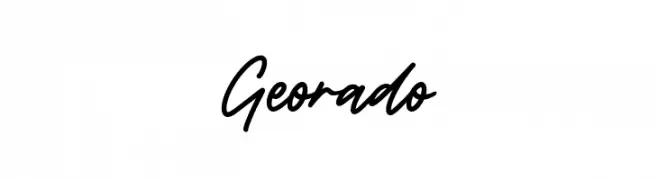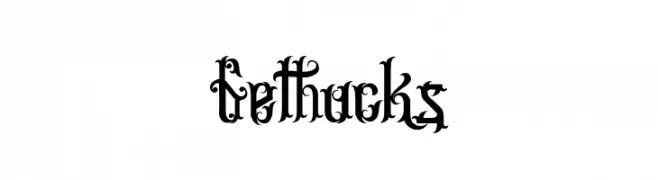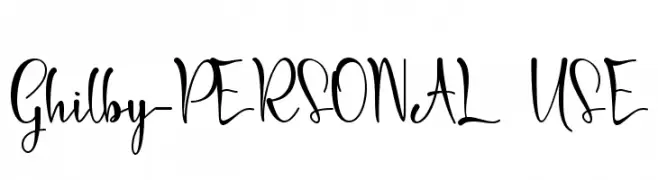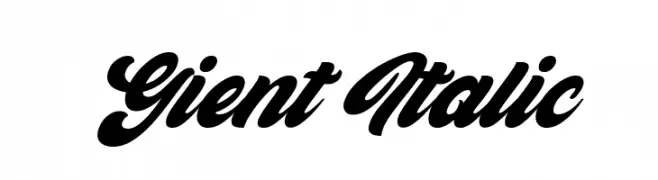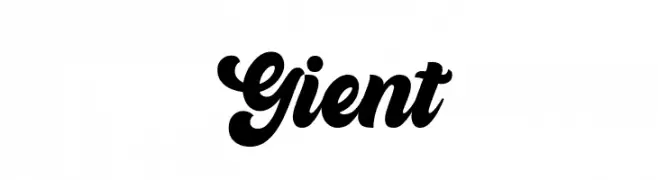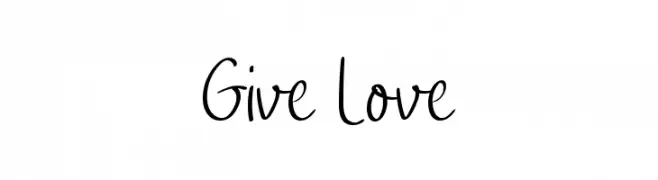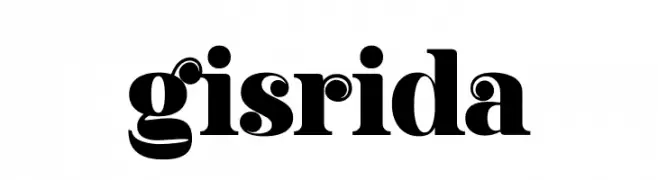
• Geometrico
• Georado
A fluid, handwritten script font with elegant, connected letters.
• Gethucks
An ornate and gothic blackletter-style font with intricate flourishes.
• Ghilby-PERSONAL USE
Playful decorative script font.
• Ghost Army Stencil
A bold, distressed stencil font with a rugged, military-inspired look.
• Gient
A bold, cursive font with smooth, flowing lines and interconnected characters.
• Gient Italic
A bold, italic script font with a modern, handwritten style.
• Gient Swash
Decorative font with exaggerated swashes.
• gisrida
A bold, decorative font with elegant swirls and flourishes.
• Give Love
A playful, handwritten font with a whimsical and casual style.